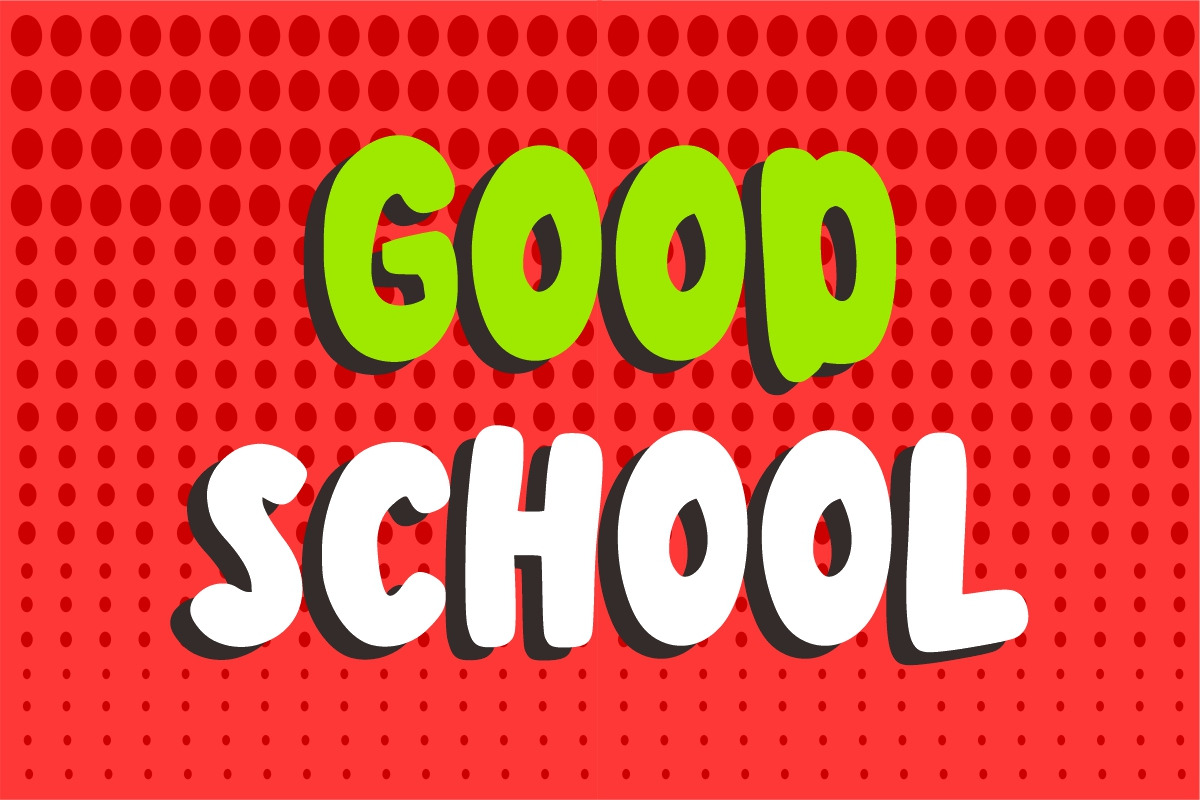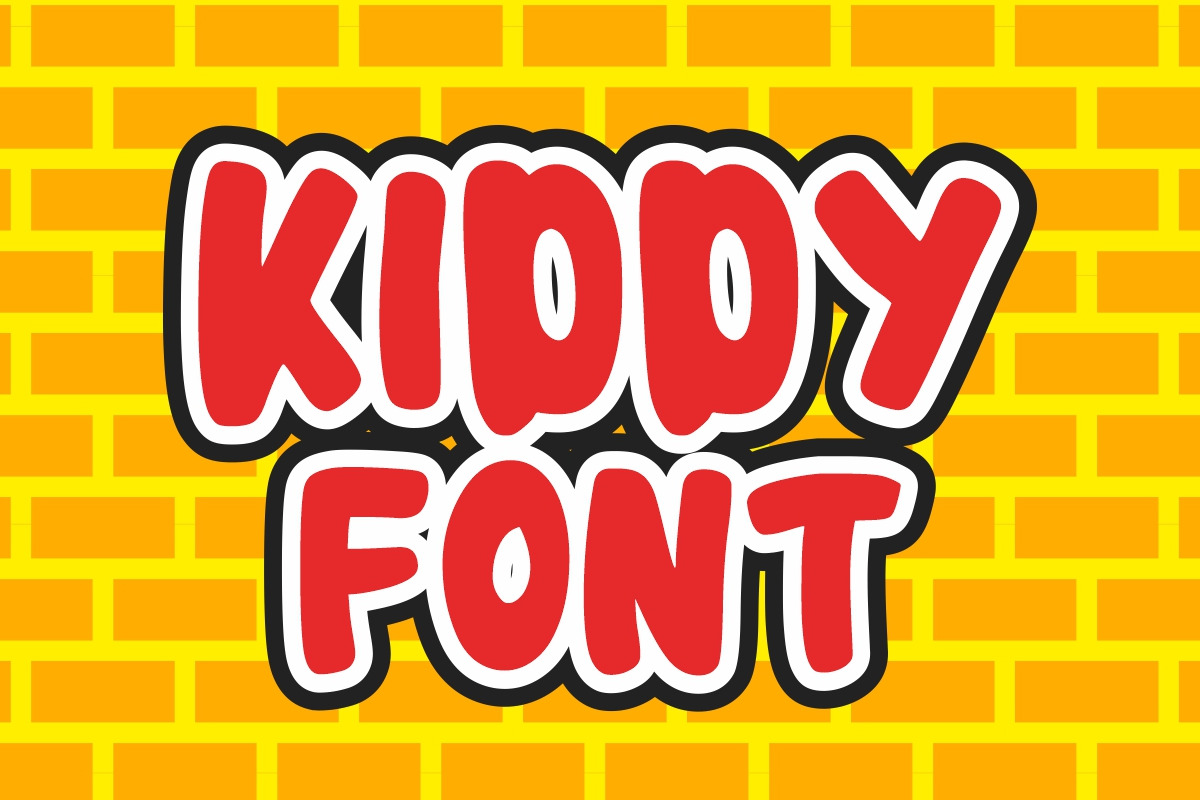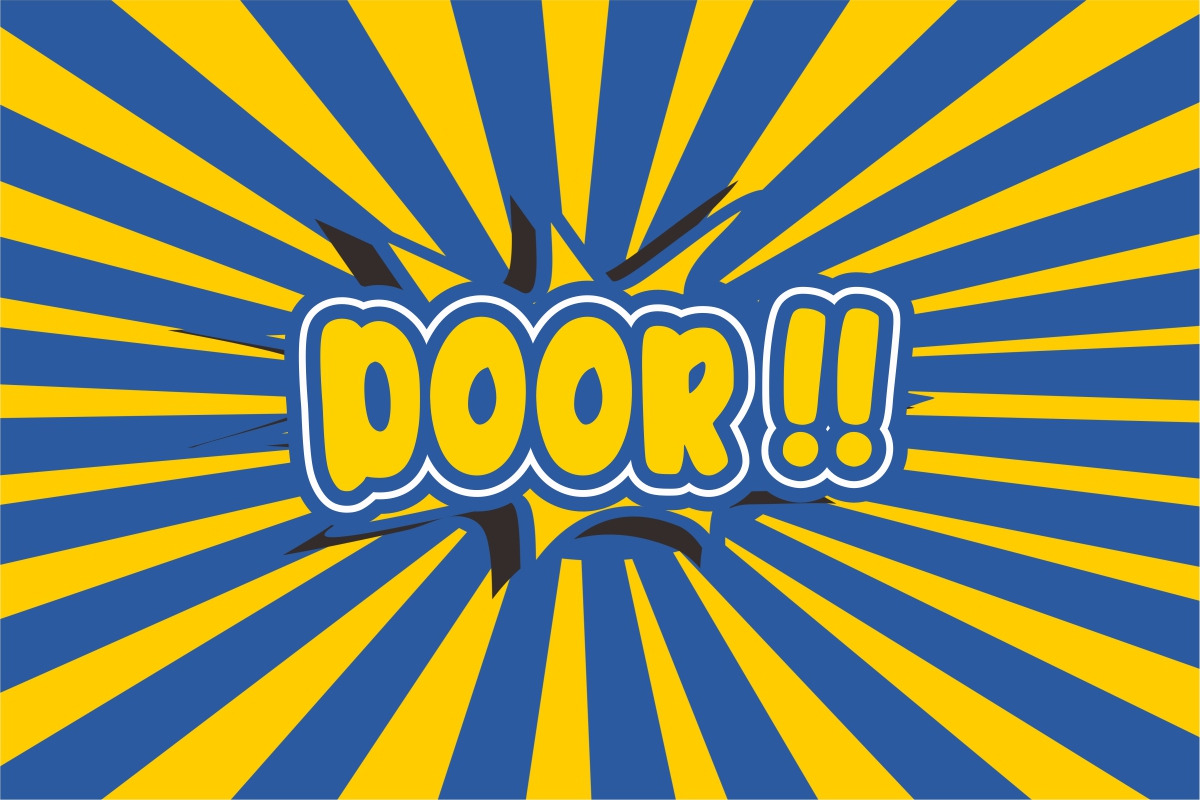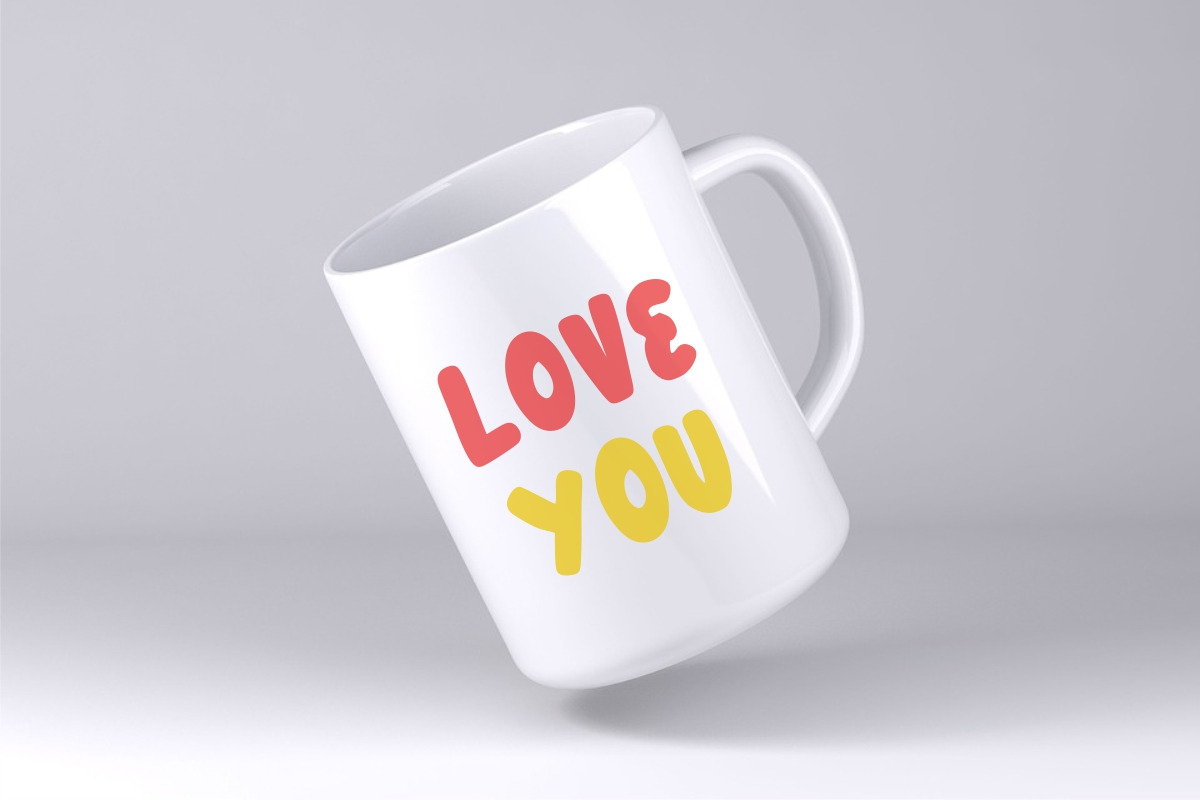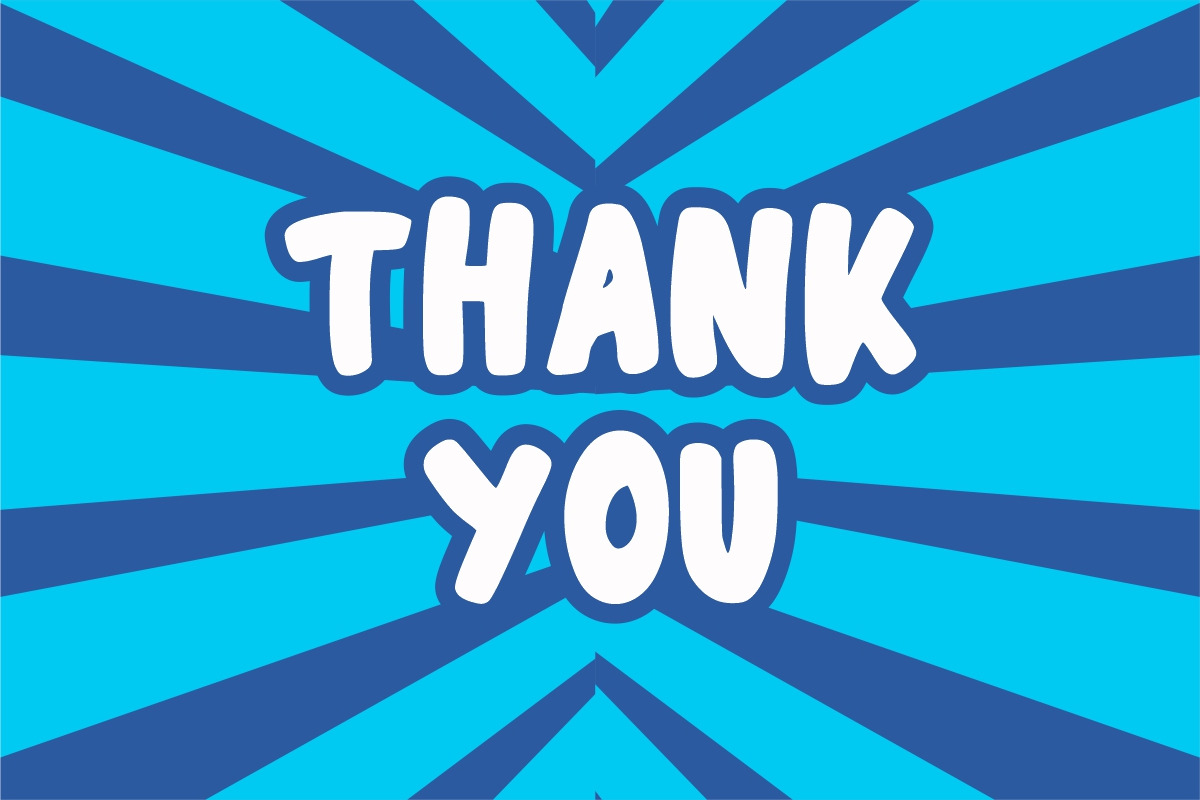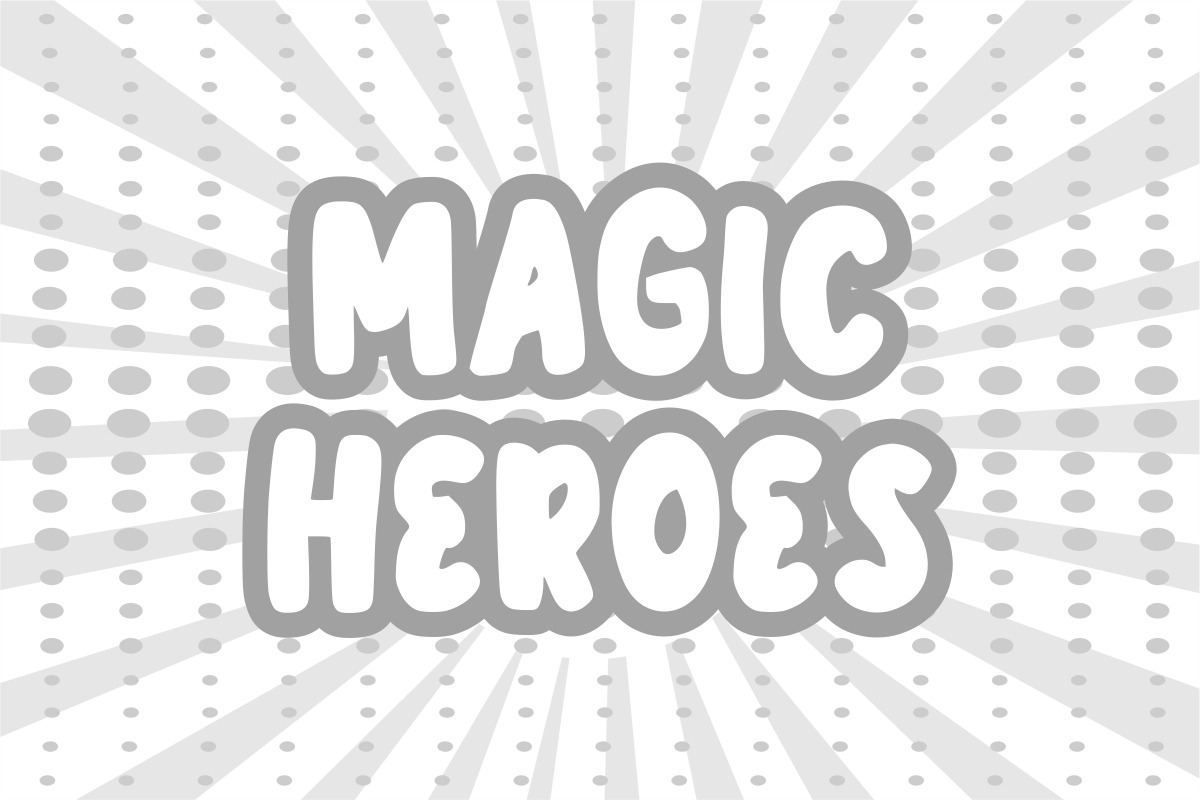
Boom Shake
Boom Shake is a childish comic display font. Whether you’re using it for crafts, digital designs, presentations, or making greeting cards, cover books, or posters for kids, this font has the potential to become your favorite go-to font, no matter the occasion!